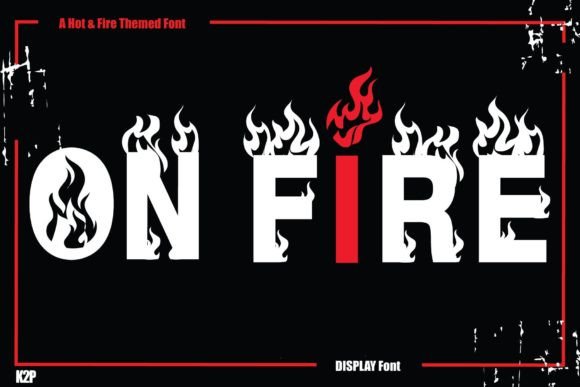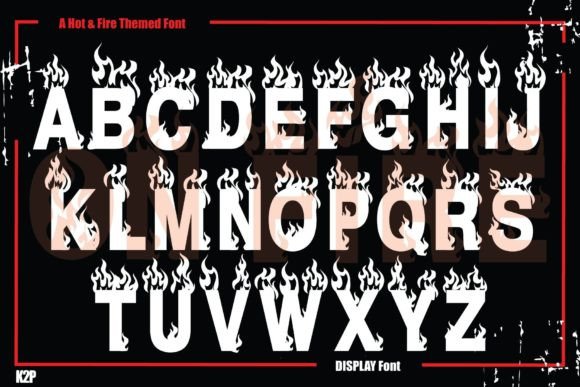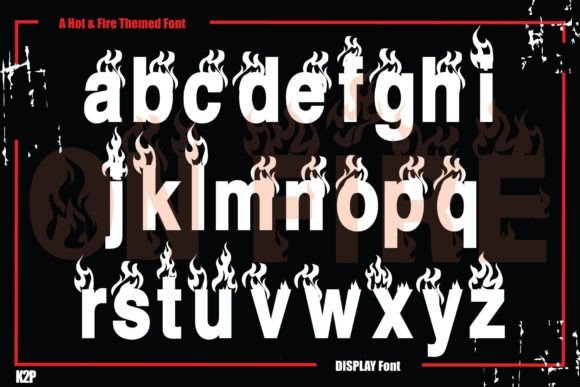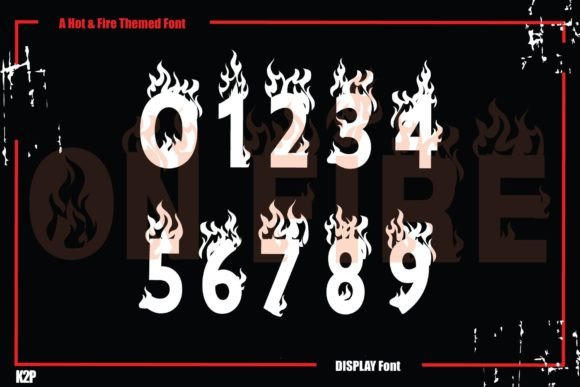
On Fire Font
About the On Fire Font
Add a touch of class to your work with the On Fire Font, a truly exceptional typeface. On Fire is a unique, thick lettered, and daring display font. No matter the topic, this font will be an incredible asset to your fonts’ library, as it has the potential to elevate any creation.
On Fire excels as a display font for headlines, posters, and branding projects requiring a bold and impactful statement. Its thick letterforms command attention, making it ideal for short, memorable phrases or impactful logos. However, its weight and density make it unsuitable for body text or UI elements where readability is paramount. Extended use could strain the viewer’s eyes.
Its strong personality pairs well with clean sans-serif fonts like Open Sans or Lato for a balanced contrast. For a more playful feel, consider pairing it with a rounded geometric sans-serif such as Futura or a script font with a less assertive stroke weight.
The font’s core personality is bold and rebellious, conveying energy and a sense of dynamism. It suits brands targeting younger audiences or those seeking to project a powerful, confident image.